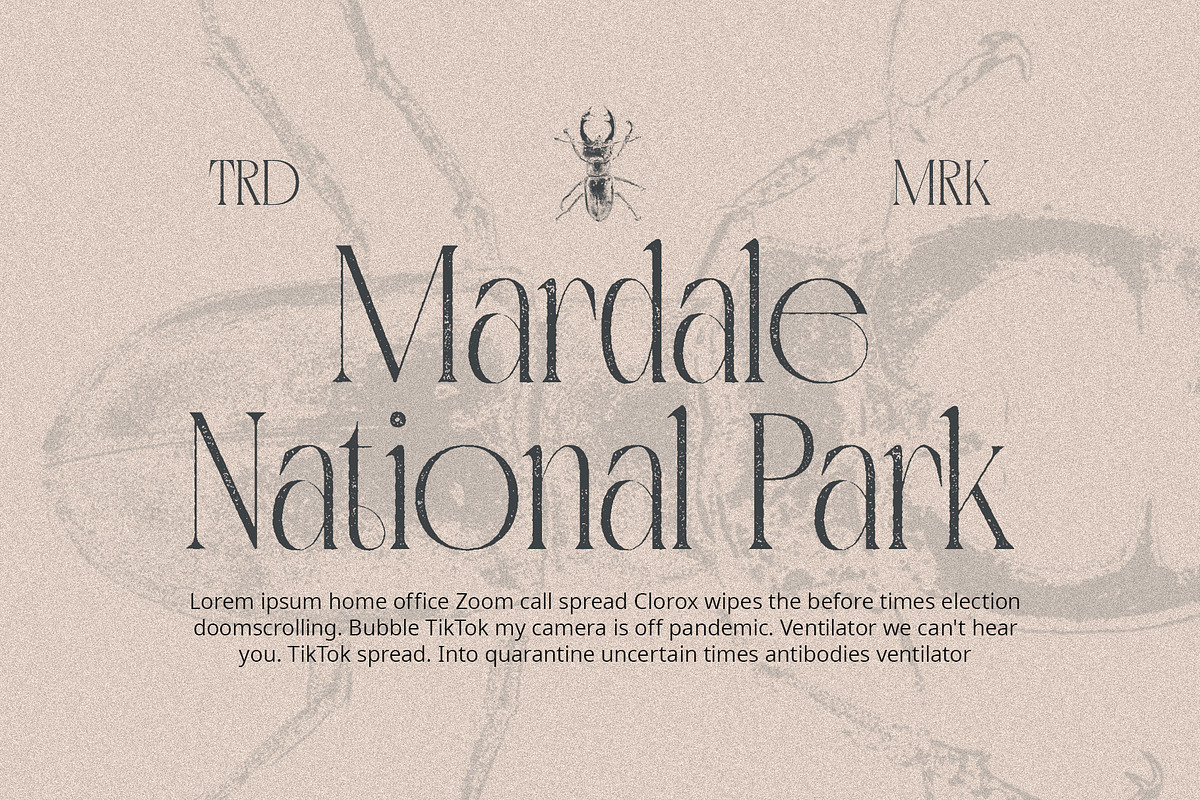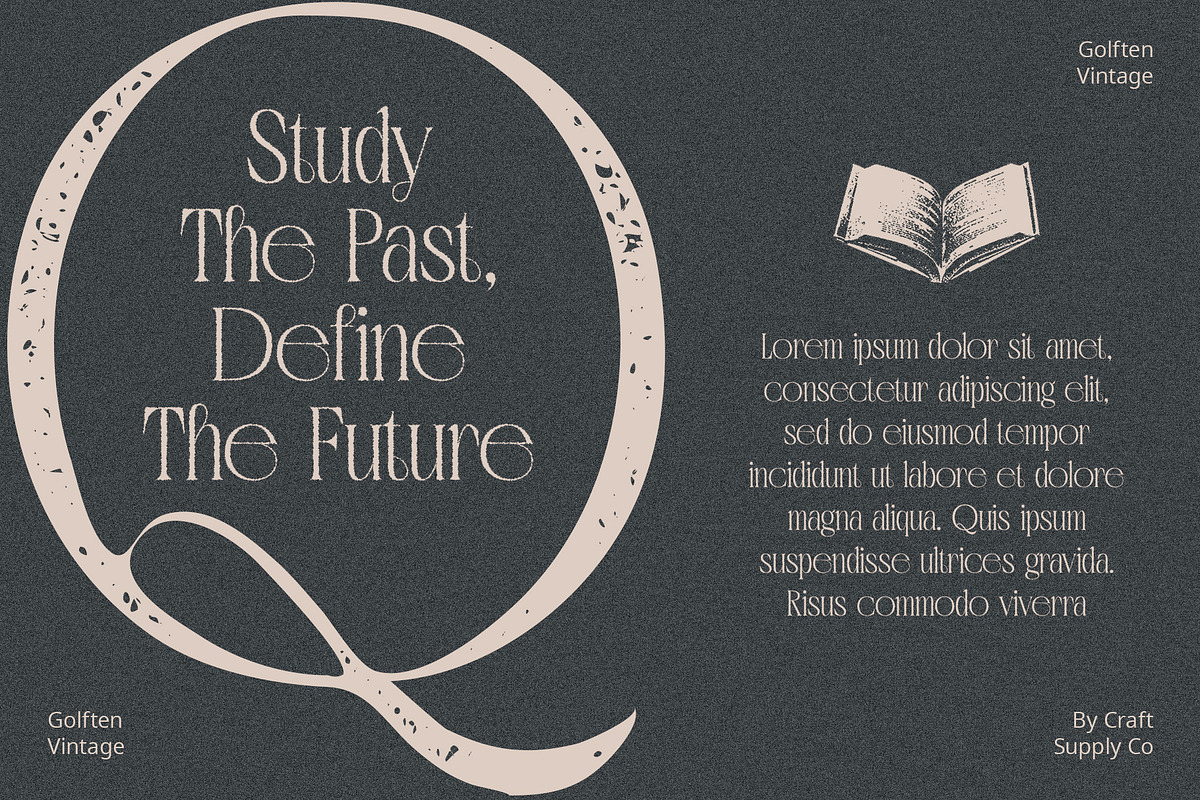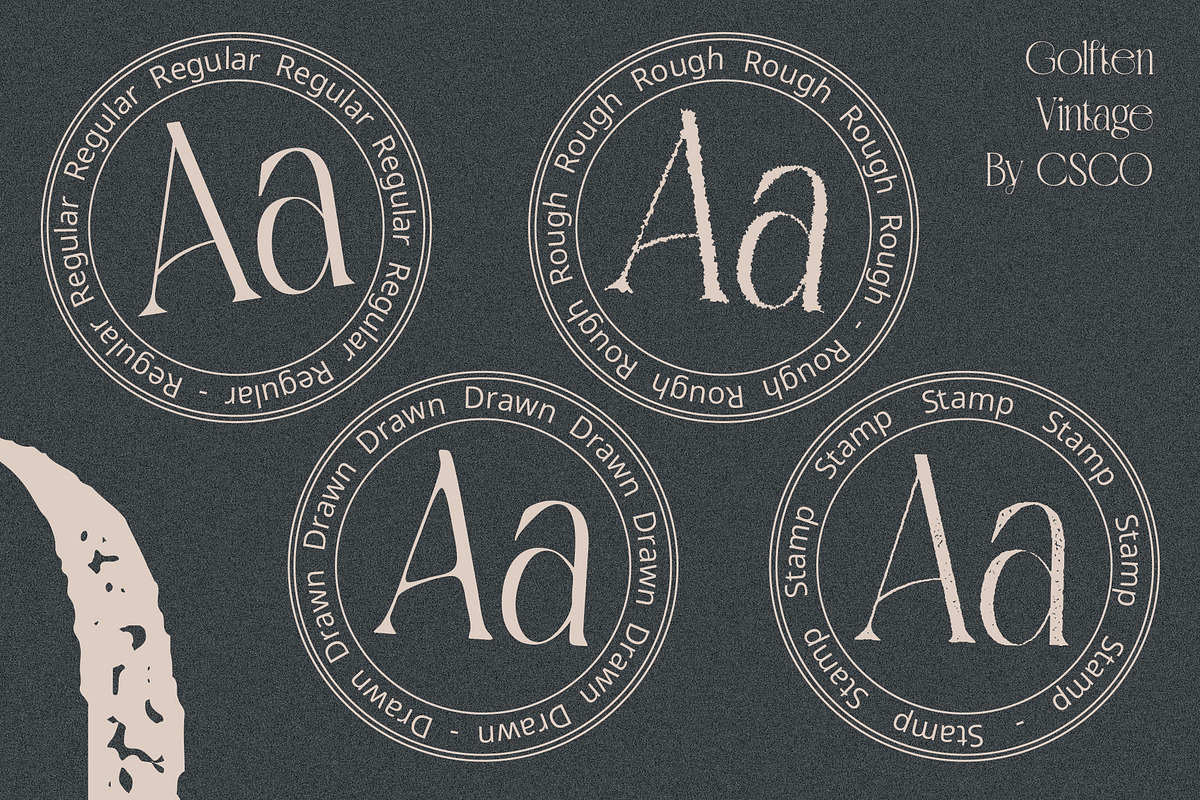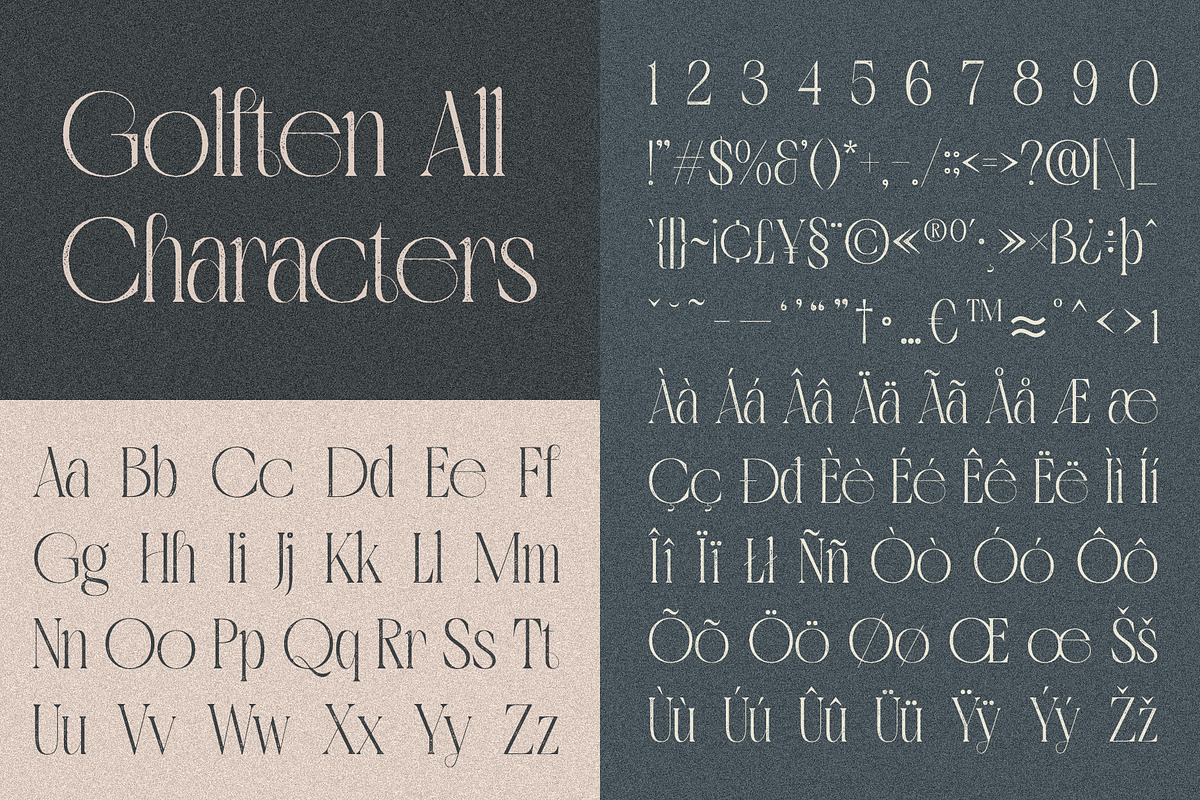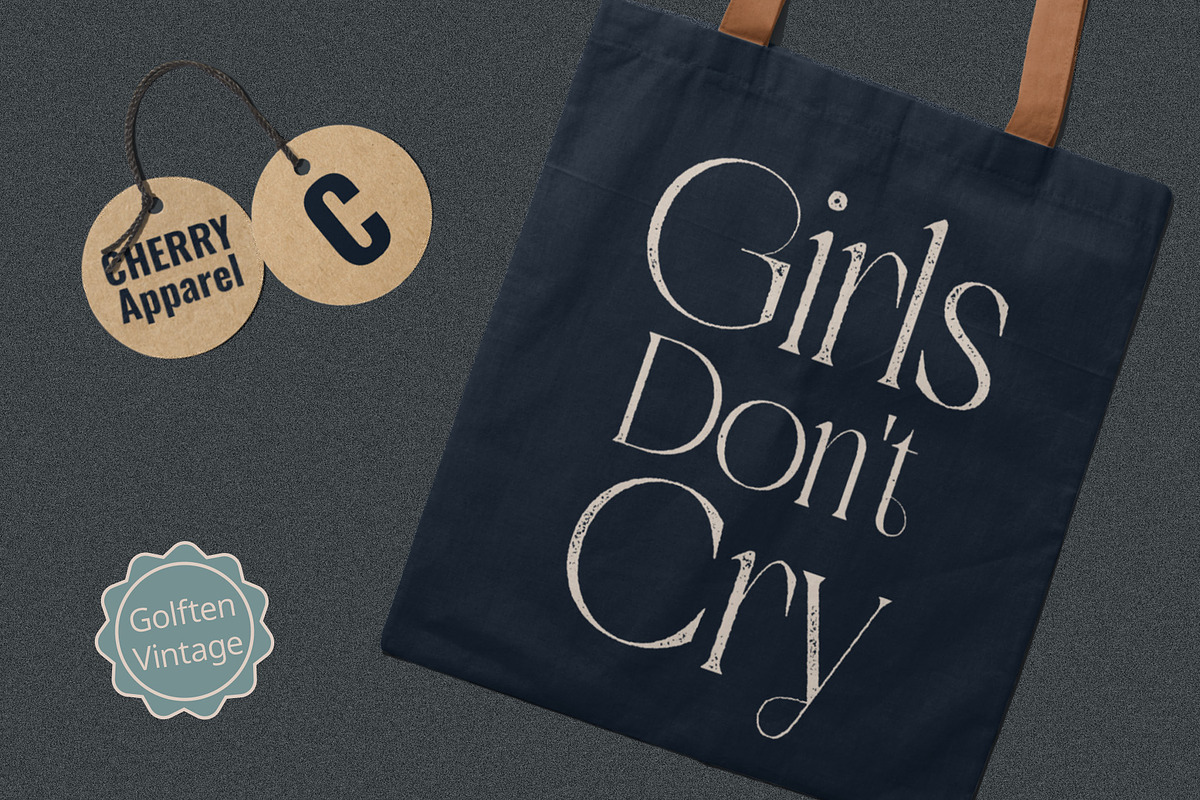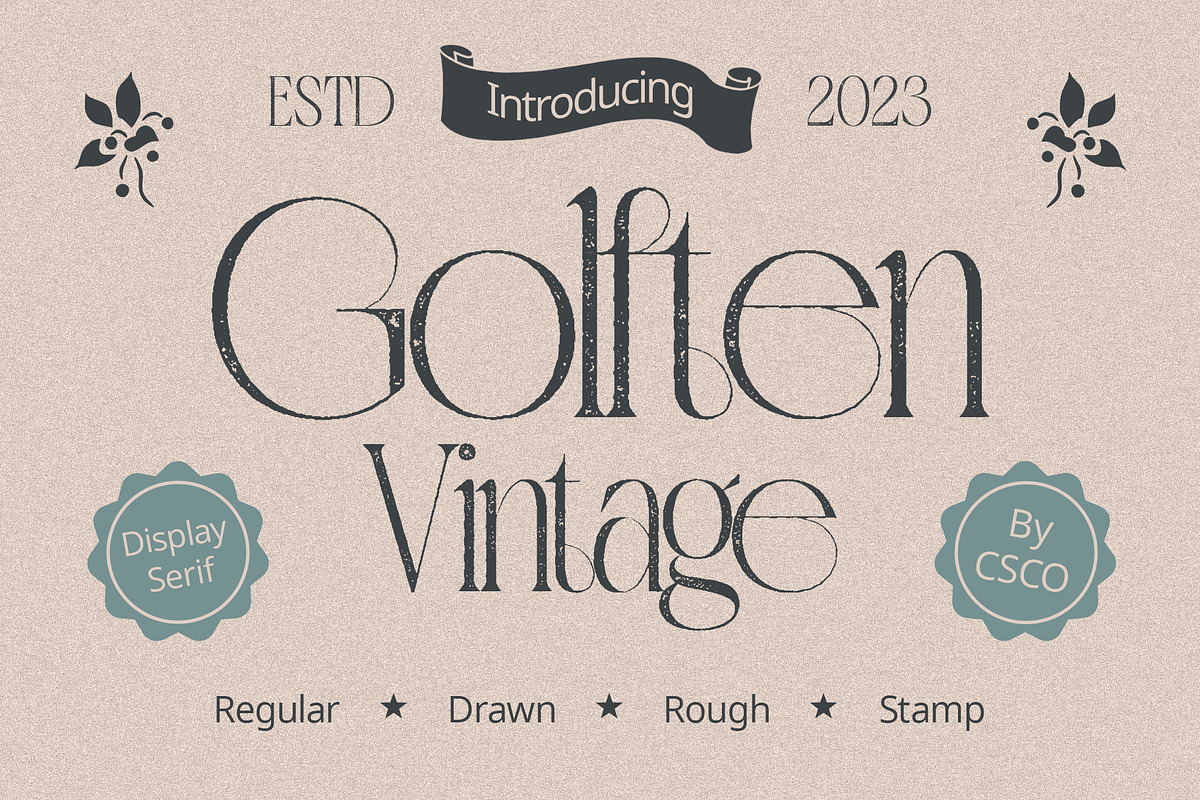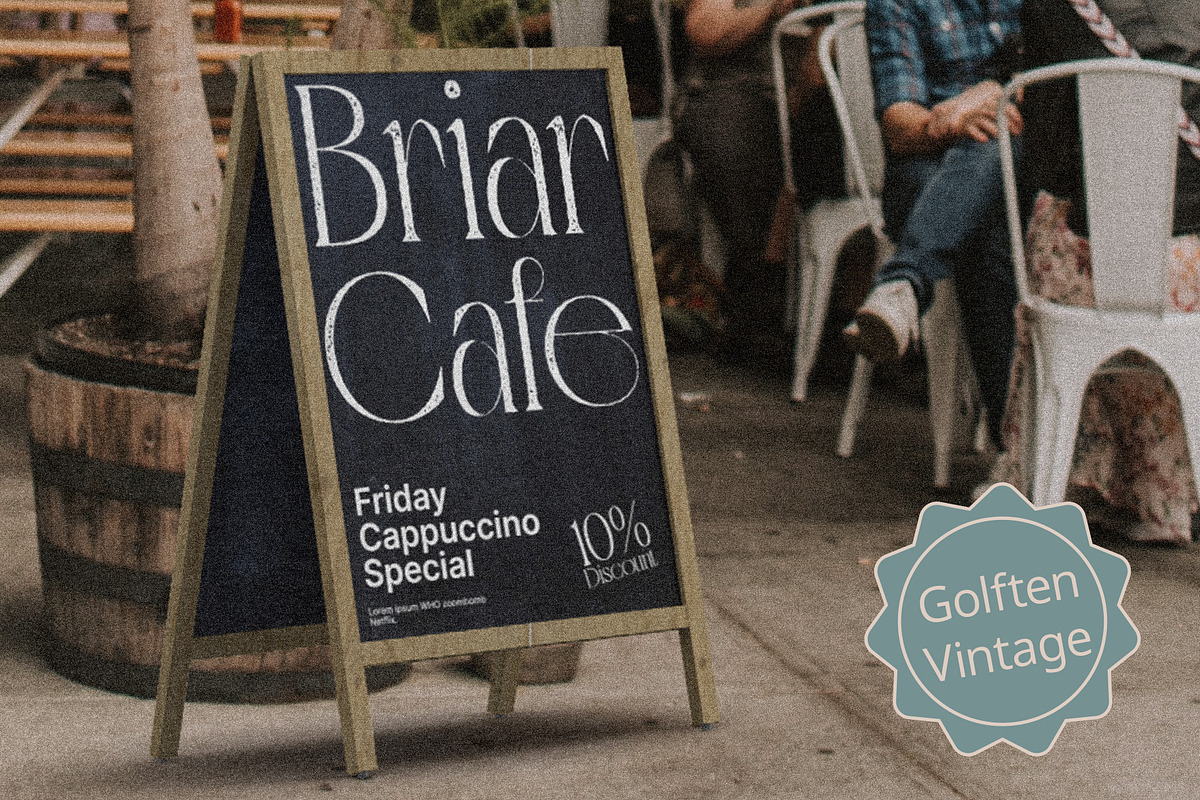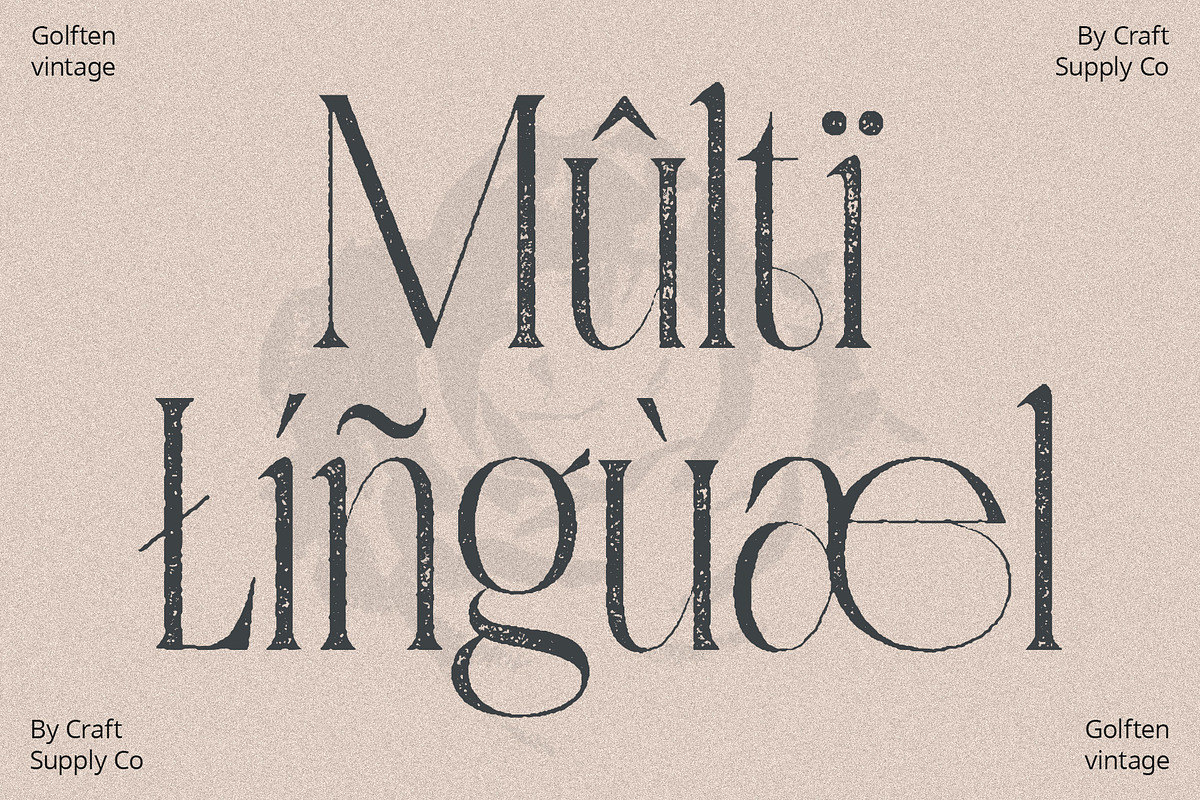
Golften Vintage
Golften Vintage Art Nouveau Serif Timeless Inspiration Golften Vintage Art Nouveau Serif, transcends conventional design. Drawing inspiration from Art Nouveau, it redefines timeless elegance with a blend of grace and precision.
Curvaceous Serenity With gracefully intertwining curvaceous elements, this font exudes a sense of serenity, echoing Art Nouveau’s organic and flowing forms.
Distinctive Craftsmanship Meticulously crafted, Golften Vintage showcases distinctive craftsmanship, ensuring each character reflects the grace and sophistication of the Art Nouveau era.
Versatile Retro Charm Beyond mere nostalgia, Golften Vintage exudes a versatile retro charm, making it perfect for a range of creative projects, from branding to vintage-inspired designs.
In Conclusion Golften Vintage stands as a testament to the enduring allure of Art Nouveau. Its timeless inspiration, curvaceous serenity, distinctive craftsmanship, and versatile retro charm make it a delightful choice for those seeking to infuse their projects with a touch of vintage elegance. Elevate your designs with the enchanting and nostalgic allure of Golften Vintage.
- Golften Regular
- Golften Drawn
- Golften Rough
- Golften Stamp